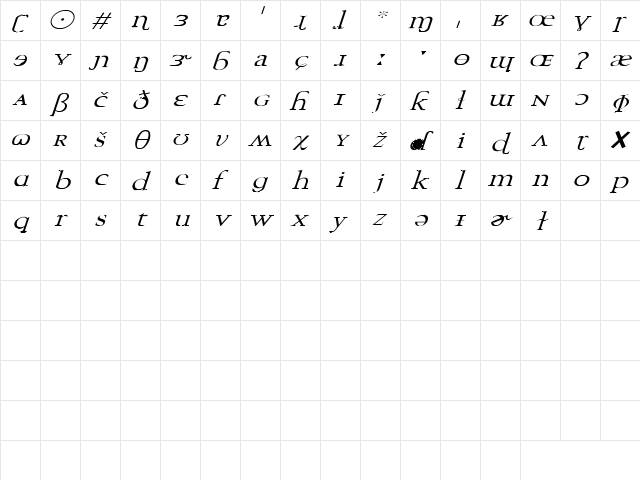
Mustang 5 Italic
Design Context for Mustang 5 Typeface
Mustang 5 offers clean, dependable letterforms without strong stylistic allegiance, making it a practical choice for designers who need flexibility. The dynamic lean of this cut emphasises speed and emphasis in any layout.
Pro Tip: Try Mustang 5 for annotation and caption copy alongside an upright companion — the contrast in angle creates a dynamic but ordered typographic system.